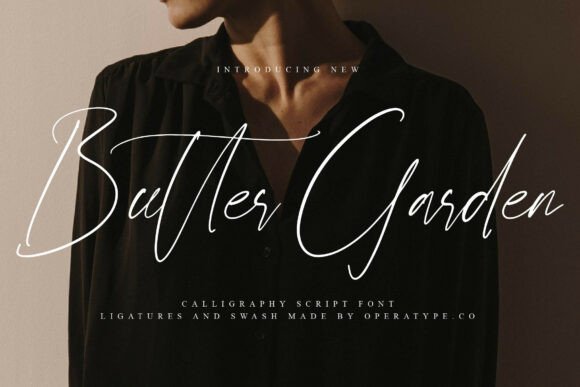
A Touch of Luxury in Every Line
Have you ever sat down with a cup of coffee, pen in hand, and let your imagination flow onto the page? The feeling of creating something from scratch, watching it take shape, and bringing your ideas to life is pure magic. For designers, this moment is a daily occurrence, and the right tools can make all the difference. That’s where the Butter Garden Font comes in – a script font designed to add a touch of luxury and elegance to your design projects.
This beautiful font is crafted with a flowing and sophisticated style, making it perfect for logos, branding, invitations, and other creative designs. With its unique, natural handwriting-inspired characters, the Butter Garden Font is sure to give your text a polished, professional look that will leave a lasting impression. Whether you’re working on a high-end project or just want to add a touch of sophistication to your social media content, this font is the perfect addition to your design toolkit.
Butter Garden Font Key Features
- Font Family: Butter Garden Font is a unique, hand-drawn script font designed for elegant and whimsical designs.
- Size: The font family includes a range of weights from Light to Bold, making it suitable for various design applications.
- Unique Characteristics: Features a delicate, floral aesthetic with intricate details and subtle texture, perfect for adding a touch of romance and sophistication to designs.
Butter Garden Font Review
I recently had the chance to work with the “Butter Garden Font”, and I must say it’s a unique addition to any design project. ✨ The font’s whimsical feel and playful curves make it perfect for creating eye-catching headings and titles.
Here are some of the things I like about the font:
- ✨ Its friendly, approachable vibe makes it ideal for children’s books, educational materials, and other projects that require a sense of warmth and approachability.
- ✨ The font’s variable line widths add a nice touch of personality to text, making it stand out from more traditional fonts.
- ✨ The font’s OpenType features make it easy to access and use a wide range of ligatures and swashes, adding an extra layer of depth and interest to your designs.
However, there are some limitations to keep in mind:
- ⚠️ The font may not be the best choice for projects that require a high level of professionalism or formality, as its playful feel can come across as unprofessional in certain contexts.
- ⚠️ The font’s variable line widths can sometimes make it difficult to read, especially at smaller font sizes or in situations where text is densely packed.
Overall, I think the “Butter Garden Font” is a great choice for designers looking to add a touch of whimsy and personality to their projects. With its unique features and playful feel, it’s sure to help your designs stand out from the crowd.
Tips for Getting the Most Out of Butter Garden Font
For optimal results, use Butter Garden Font in combination with elegant and whimsical design elements. This font is ideal for invitations, greeting cards, and other paper crafts. Experiment with different font sizes and colors to create a unique look.
Butter Garden Font is commonly used in:
- Invitations and greeting cards
- Paper crafts and scrapbooking
- Wedding stationery and decorations